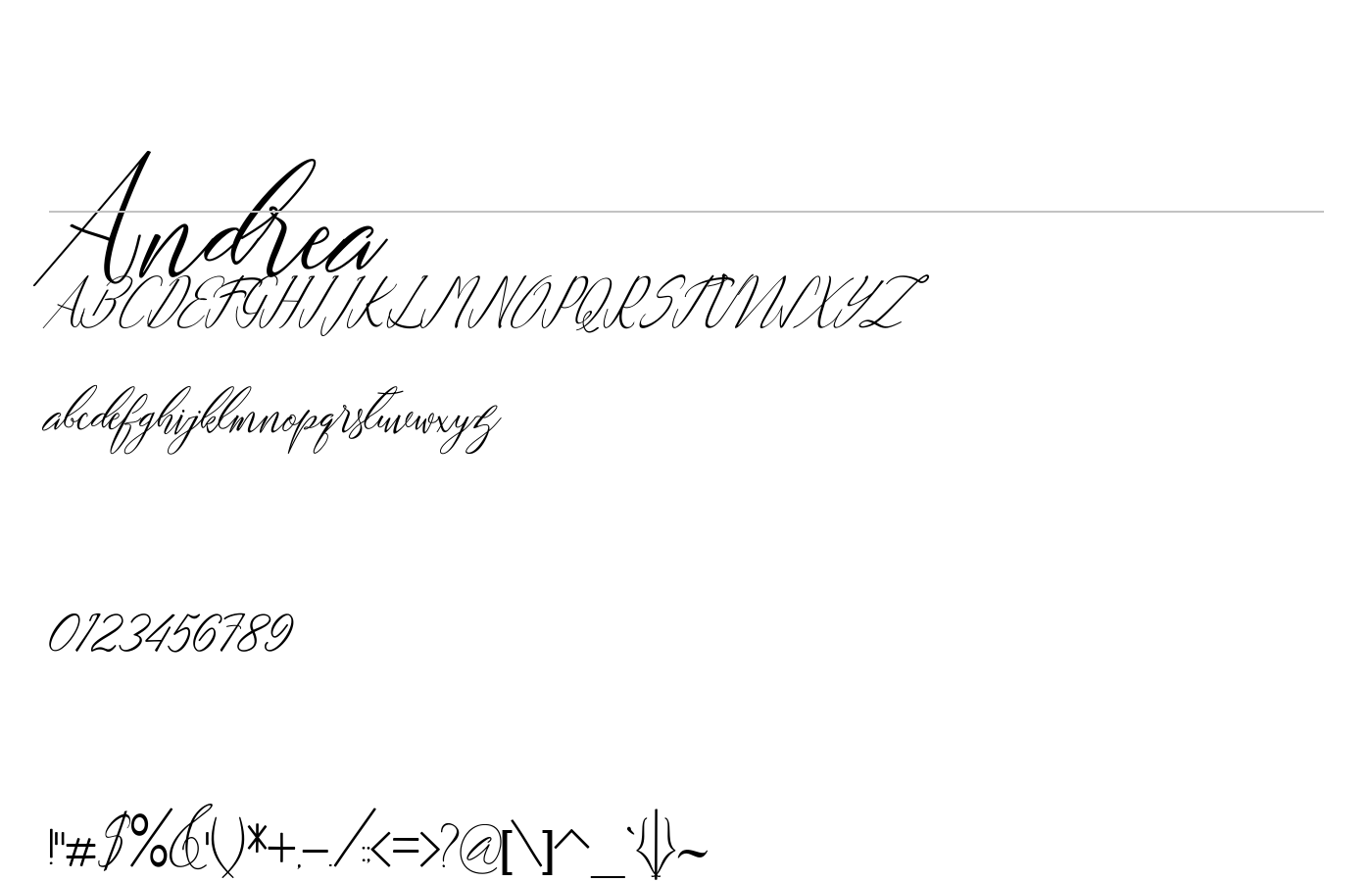
Andrea is an elegant and delicate script font with a refined, handwritten style characterized by its slender, flowing strokes and graceful curves. Its light weight and high contrast between thin and slightly thicker lines give it a sophisticated yet approachable feel, making it ideal for use in luxury branding, wedding invitations, and stylish editorial work where a personal and artistic touch is desired. The font’s airy spacing and smooth letterforms make it best suited for headlines and decorative text rather than body copy.
Andrea Font